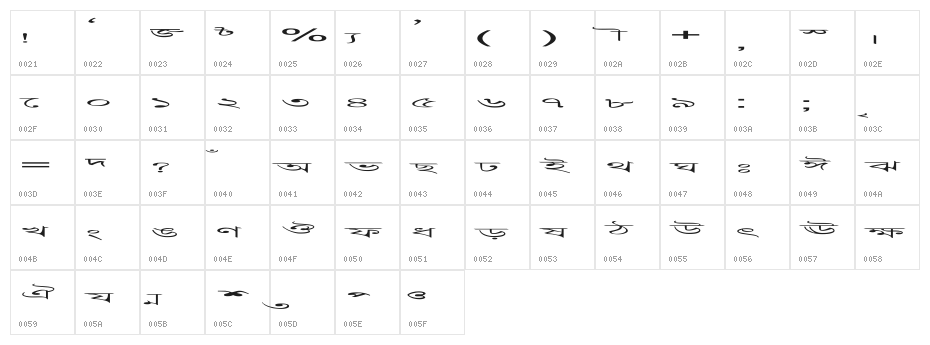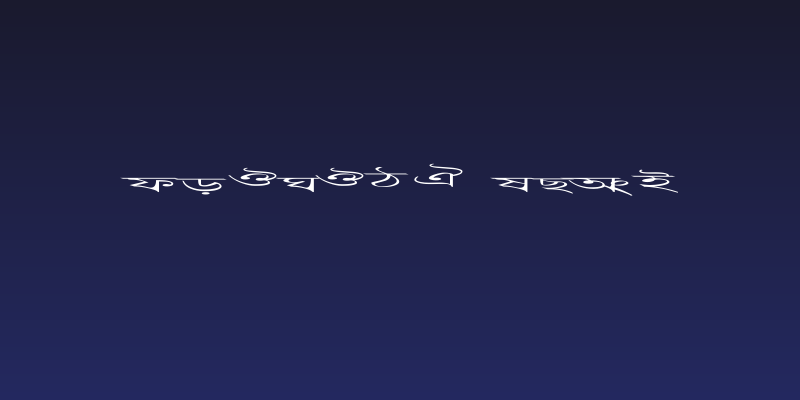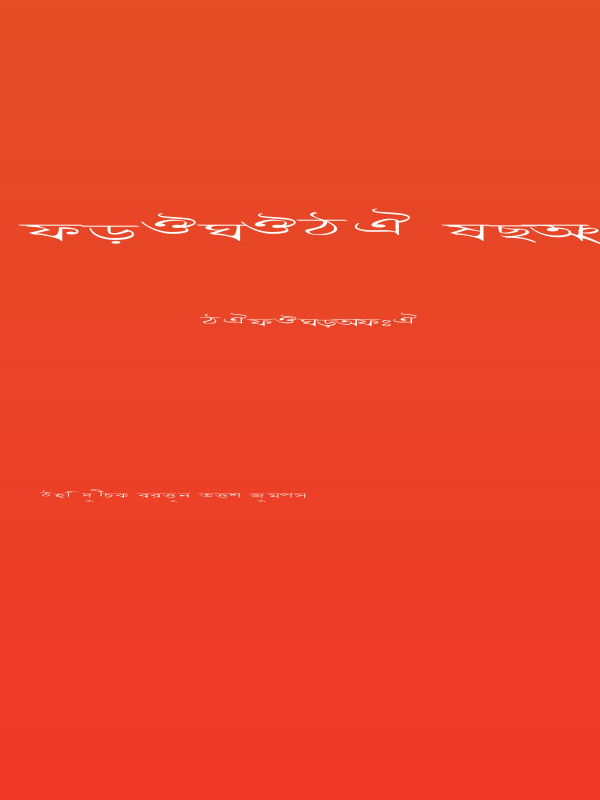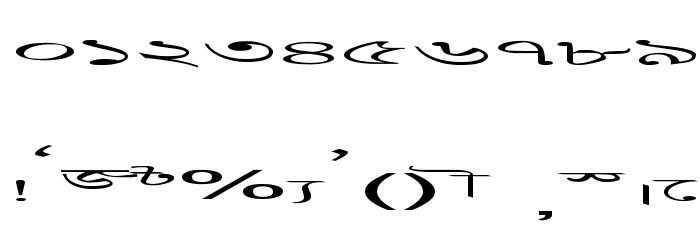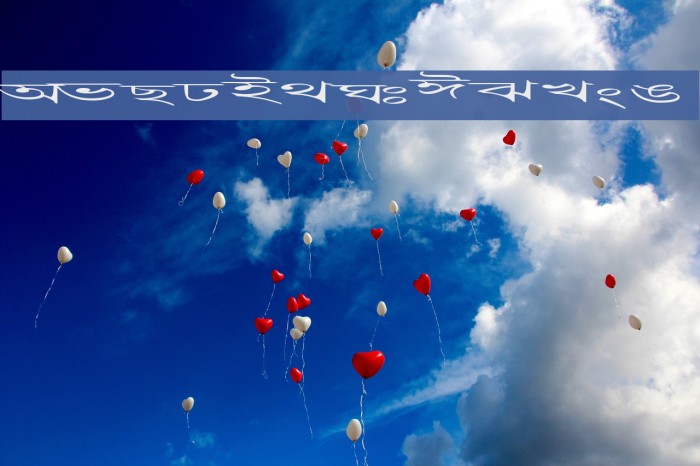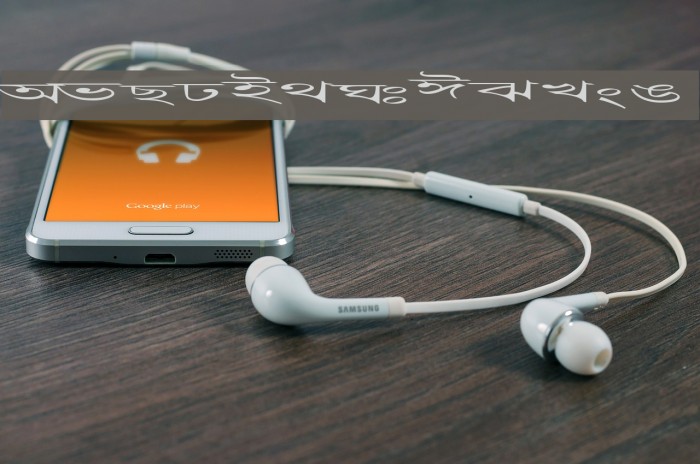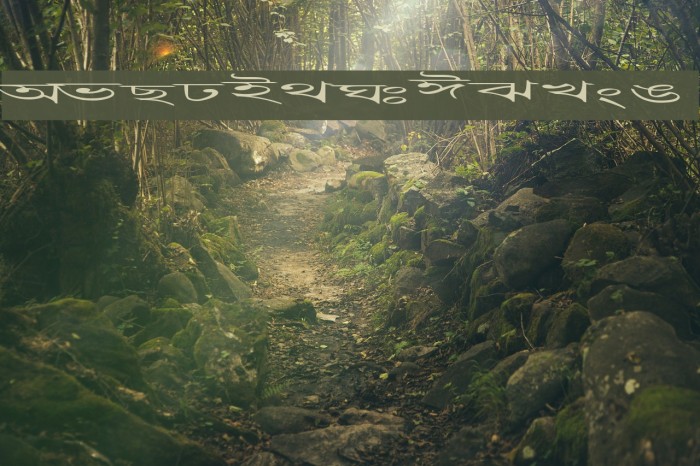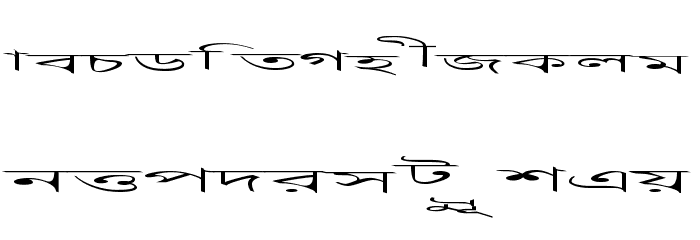
Progoty Scale Font
Progoty Scale Description
This font features a traditional script style with elegant curves and intricate detailing, reminiscent of classical calligraphy. The characters are designed with a high level of artistry, showcasing a blend of thick and thin strokes that create a dynamic visual rhythm. The script is fluid and graceful, with each letter seamlessly connecting to the next, making it ideal for conveying a sense of sophistication and cultural richness. The numerals and special characters maintain the same stylistic elements, ensuring consistency throughout the typeface.
| Proposed Projects | This font is perfect for cultural projects, wedding invitations, formal event programs, and artistic posters. |